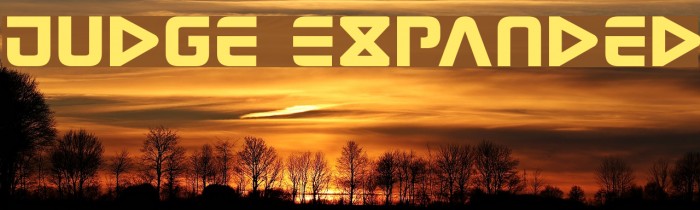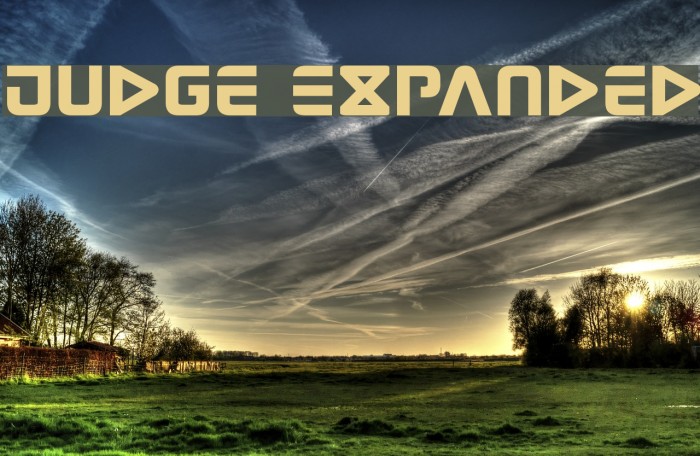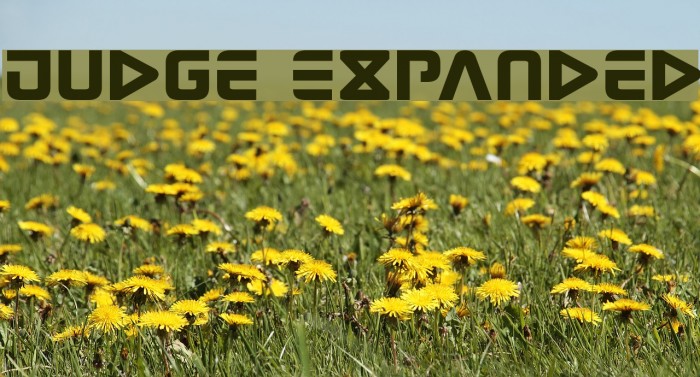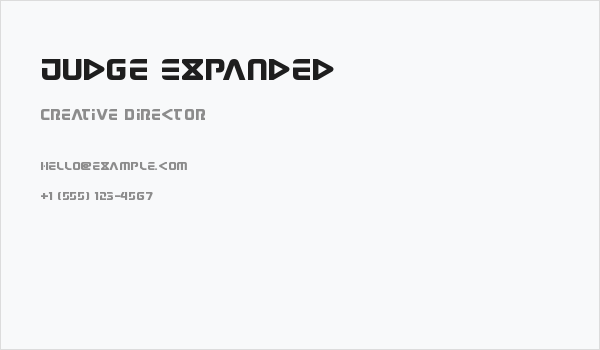
Judge Expanded Font
Judge Expanded Description
This font features a bold and geometric design, characterized by its strong, angular lines and unique shapes. The uppercase letters are particularly striking, with a futuristic and industrial feel. The lowercase letters maintain the same boldness, offering a consistent look across different cases. Numbers are equally robust, ensuring readability and impact. Special characters are designed to match the overall aesthetic, making them suitable for a variety of uses. The font's distinct style makes it ideal for projects that require a modern and edgy appearance.
| Proposed Projects | Ideal for branding, posters, video game graphics, and sci-fi themed projects. |